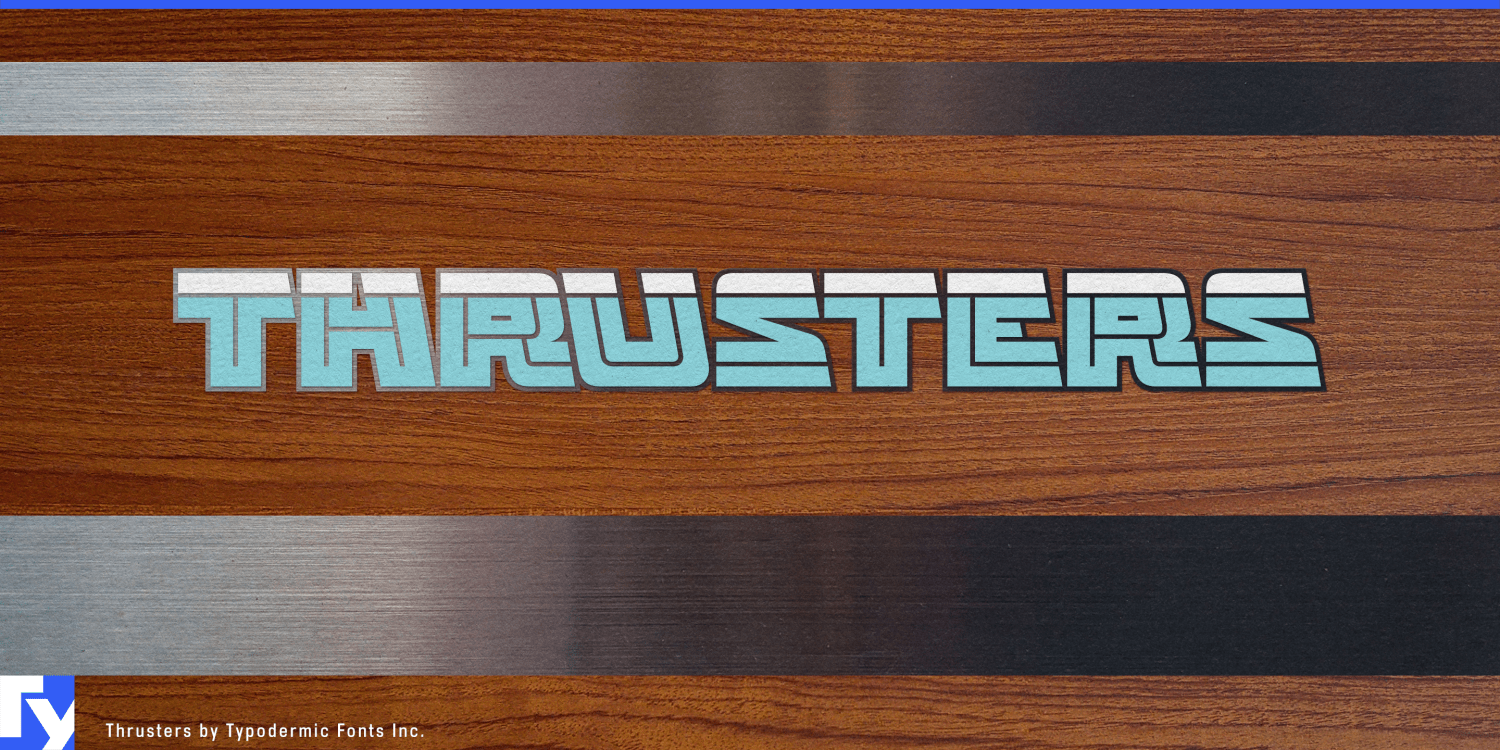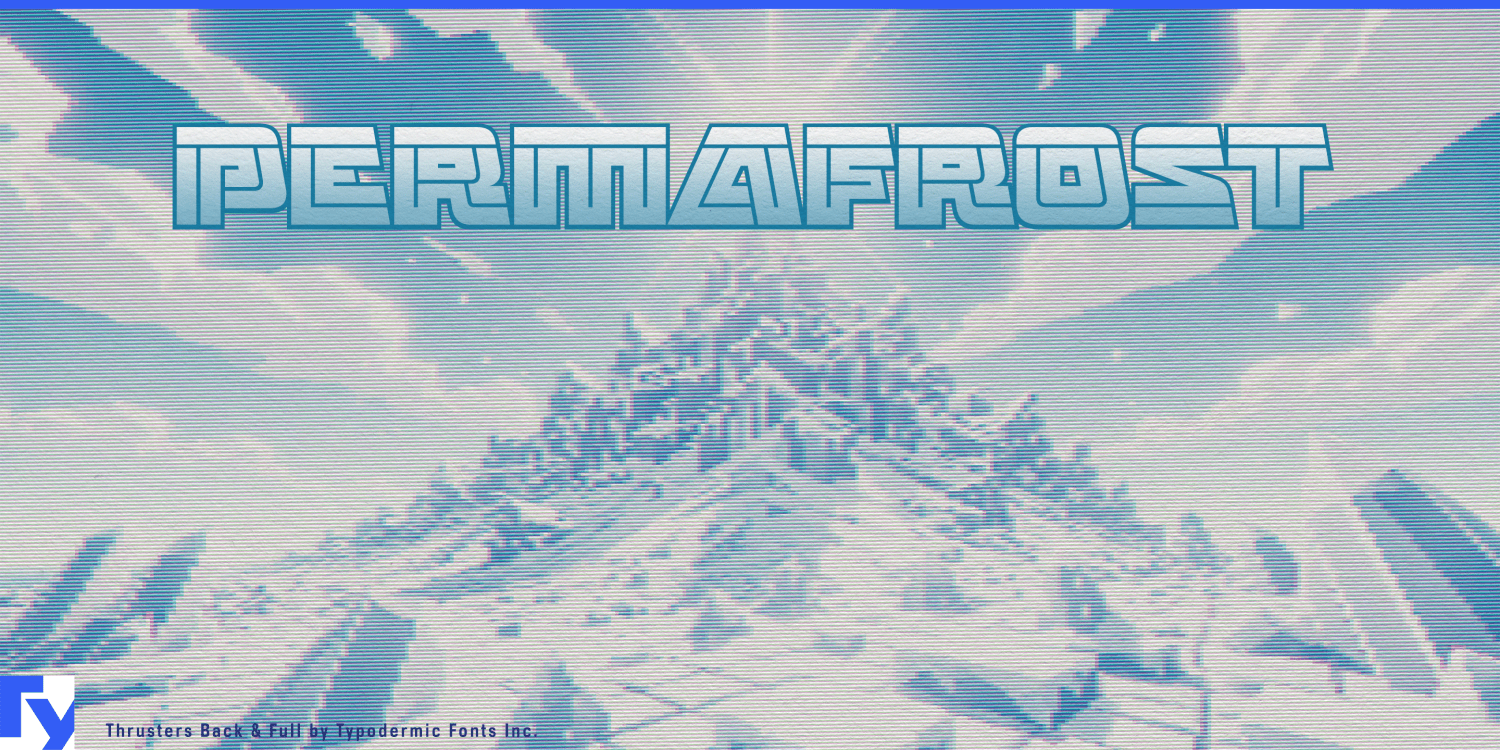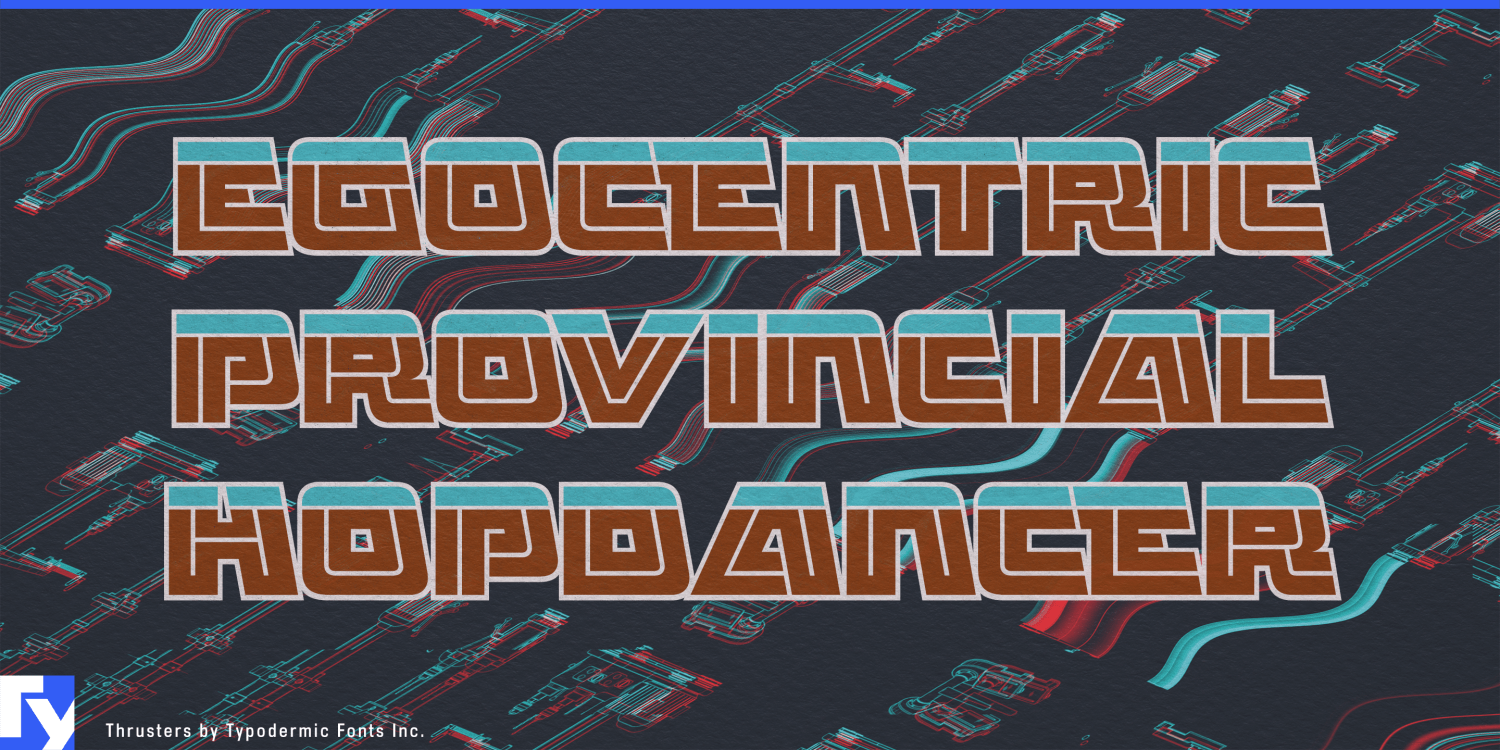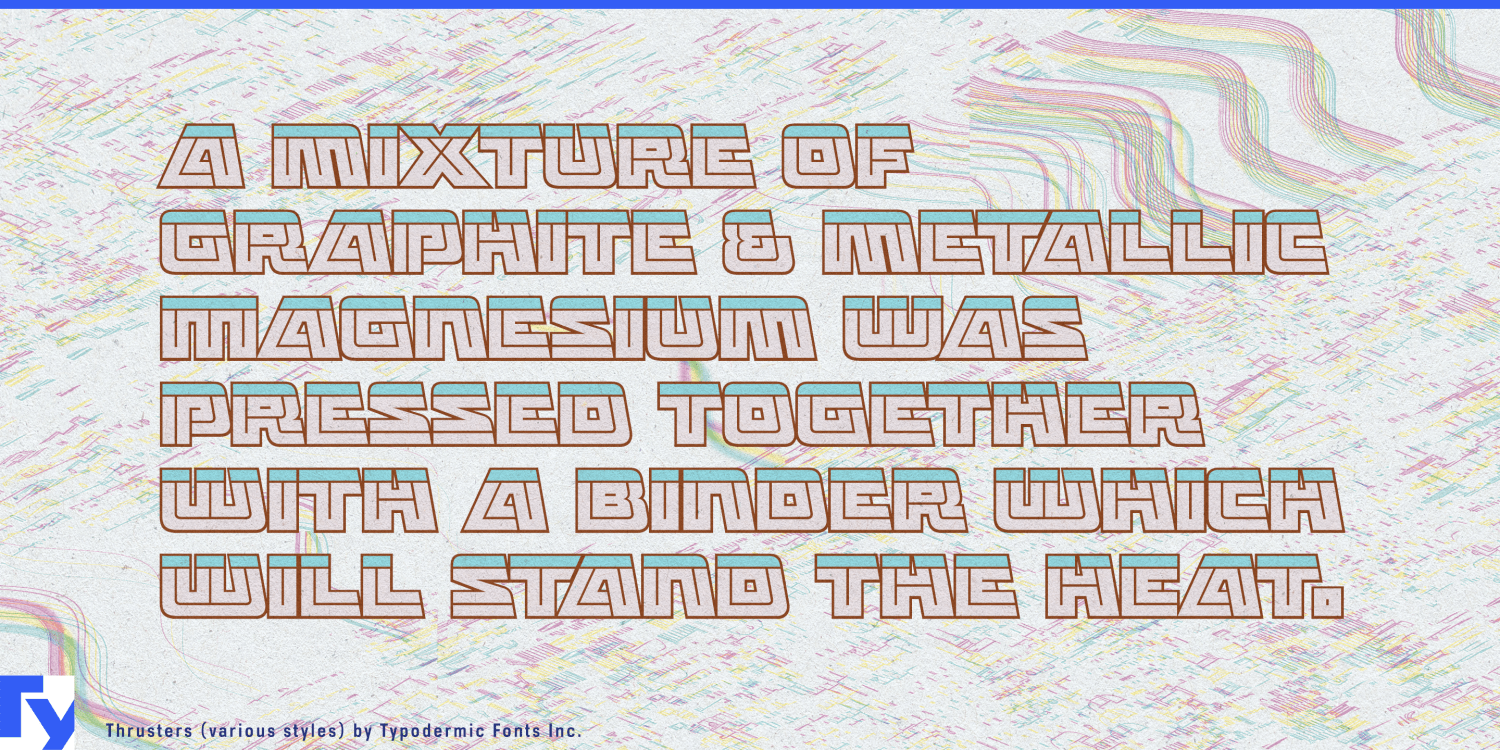
Thrusters
About Thrusters
Ready player one? It’s time to power up your designs with Thrusters—the typeface that’s more electrifying than a pocket full of quarters on arcade night! This is a warp zone straight back to the golden age of video game entertainment.…